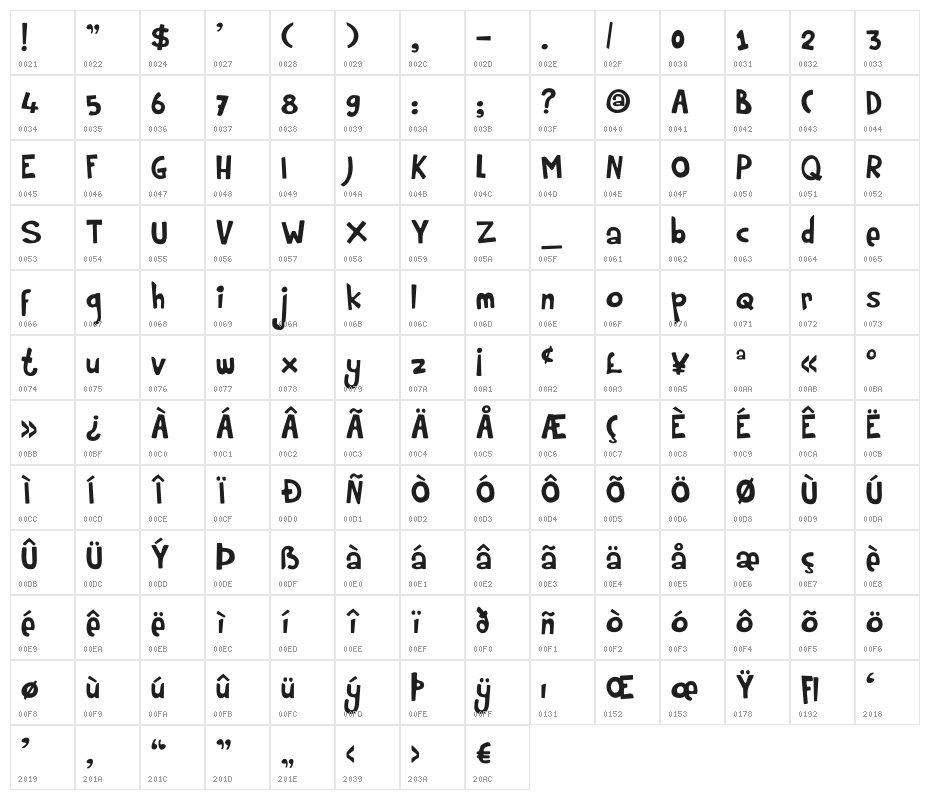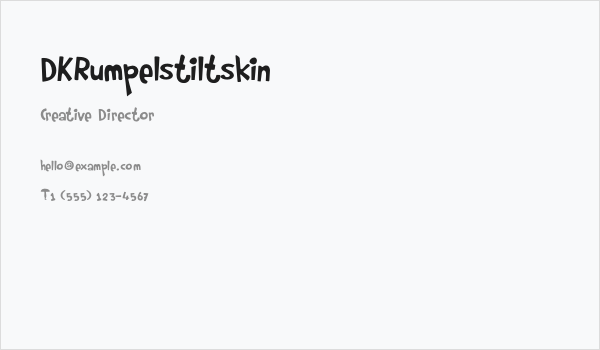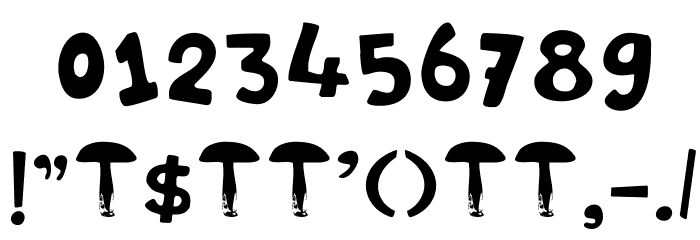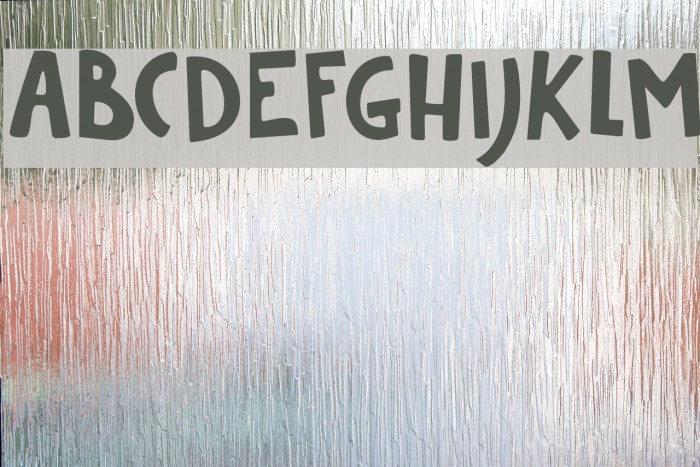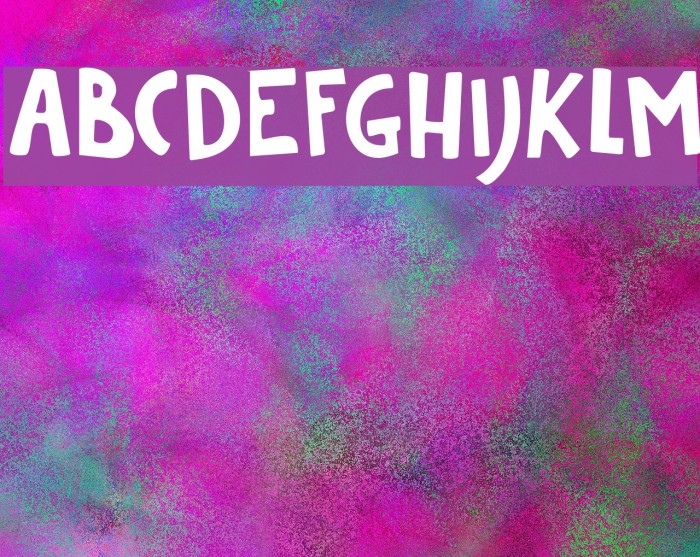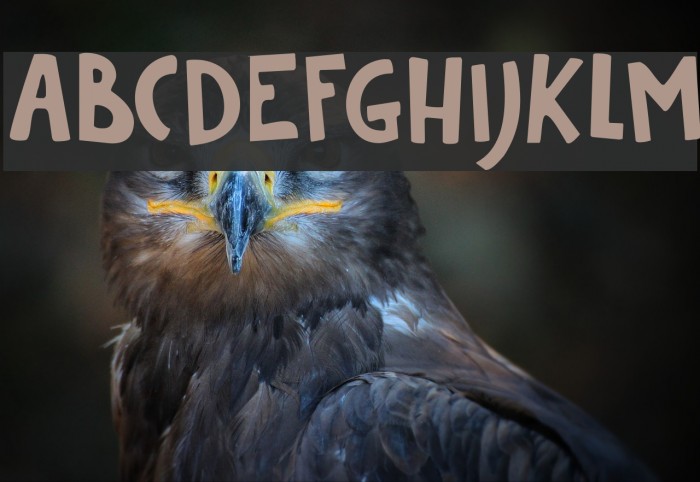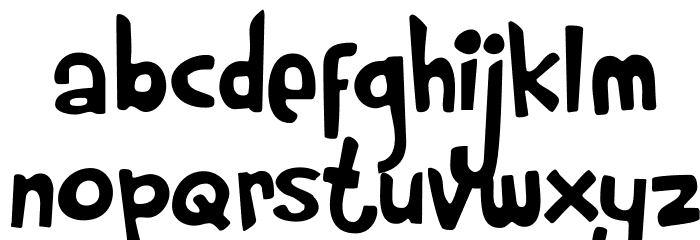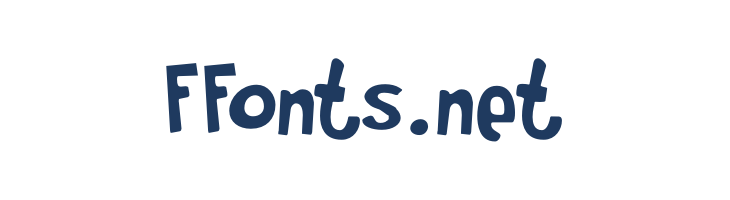
DKRumpelstiltskin Font
This font features a playful and whimsical style, characterized by its bold and irregular letterforms. The uppercase letters are slightly exaggerated, with varying stroke widths that give a hand-drawn appearance. The lowercase letters maintain a consistent style, with rounded edges and a casual feel. Numbers are bold and follow the same playful aesthetic. Special characters are creatively designed, adding to the font's unique personality. This font is perfect for projects that require a fun and informal touch.
| Overall Style | Whimsical |